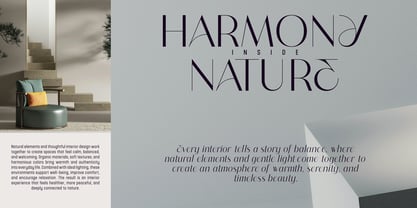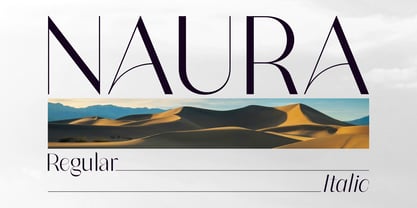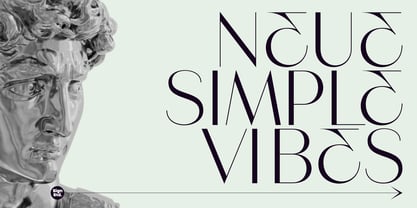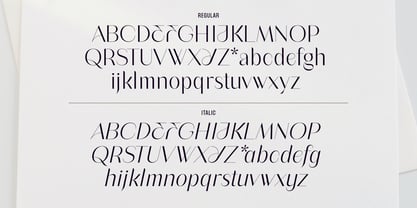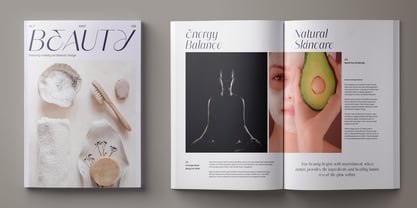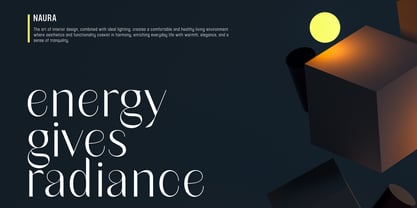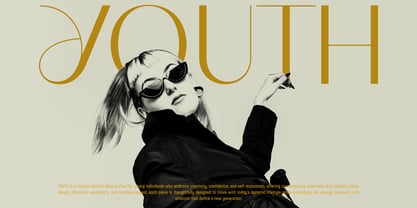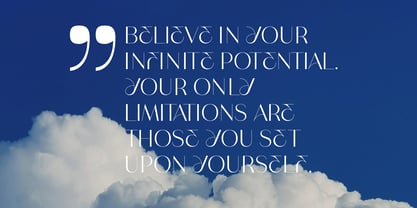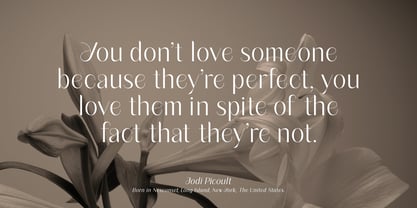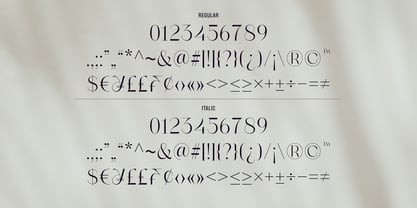
Naura
A Refined Modern Serif with Graceful Contrast
Naura is an elegant modern serif typeface that blends delicate high-contrast strokes with refined curves and sophisticated details. Designed to capture a sense of luxury and timeless beauty, Naura delivers a distinctive editorial presence while maintaining excellent readability.
Its graceful letterforms feature slender serifs, flowing terminals, and stylish proportions that make it ideal for premium branding and contemporary design projects. The accompanying italic style introduces additional movement and personality, perfect for adding emphasis and elegance to typography compositions.
Whether used for fashion branding, luxury packaging, or editorial layouts, Naura brings a polished and memorable aesthetic to every project.